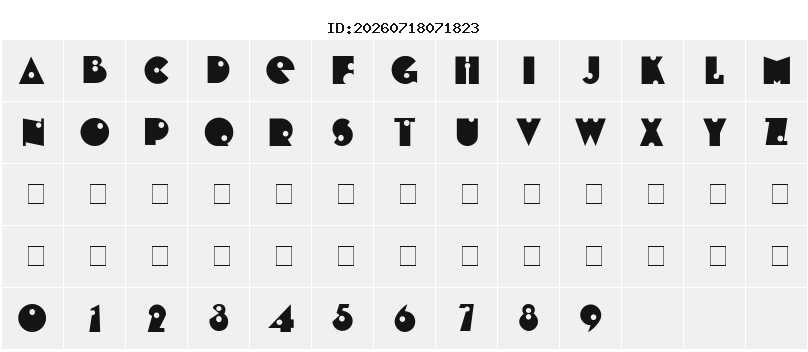
• Font Name: Cheap Shot Display Caps SSi
Cheap Shot Display Caps SSi.ttf is a modern, elegant sans-serif font designed for ultimate readability and visual harmony. Perfect for branding, headlines, web design, and print materials.